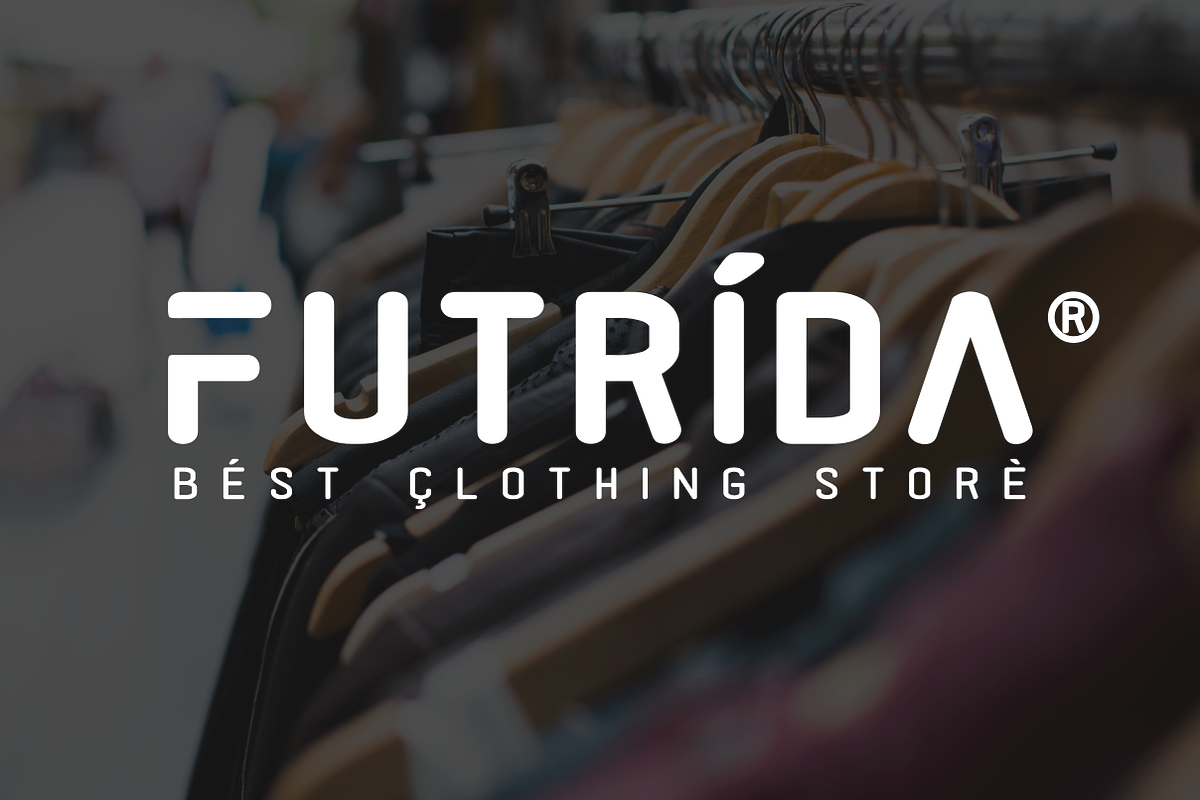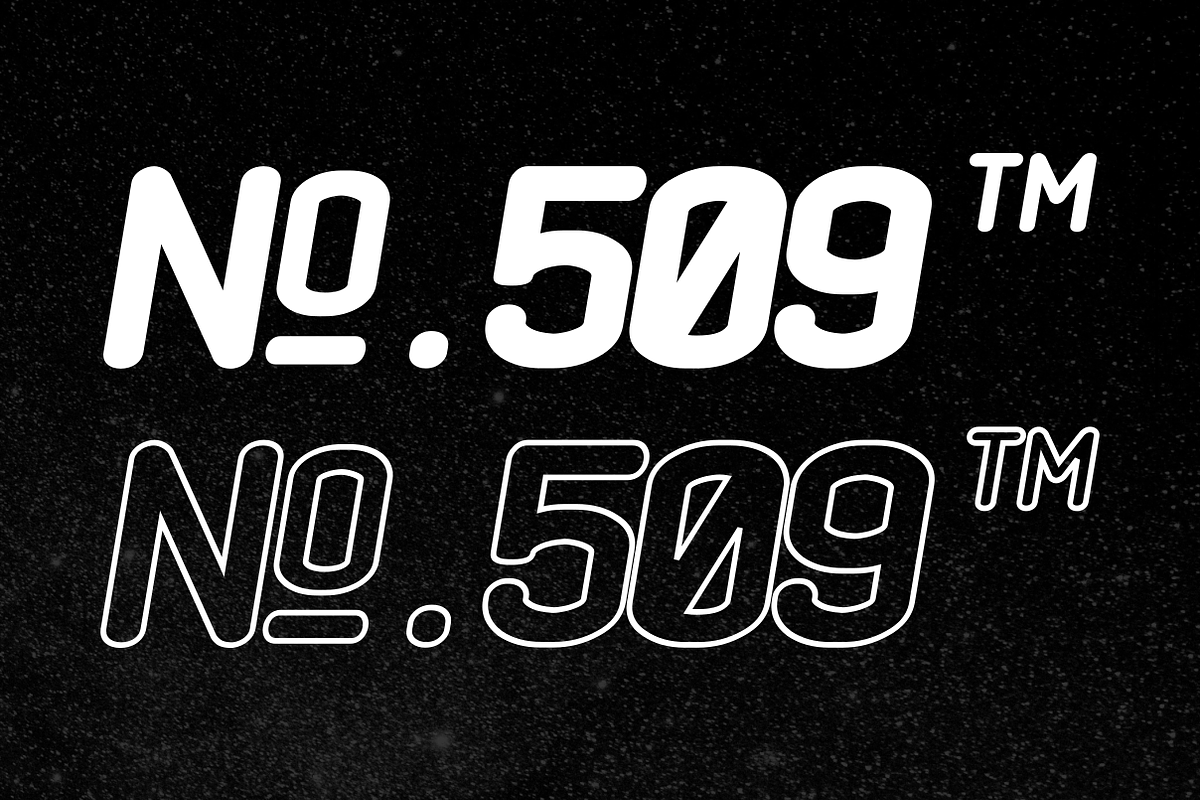
Black Rovers - Headline Sans Family
The Black Rovers is a striking sans serif family. It includes 8 weights, designed for impact-full and stylish visual impressions. It has semi humanist and semi geometric details which are perfect for creating high impact designs and is a good choice for logos, branding, invitations, stationary, advertisements, labels, and much more!